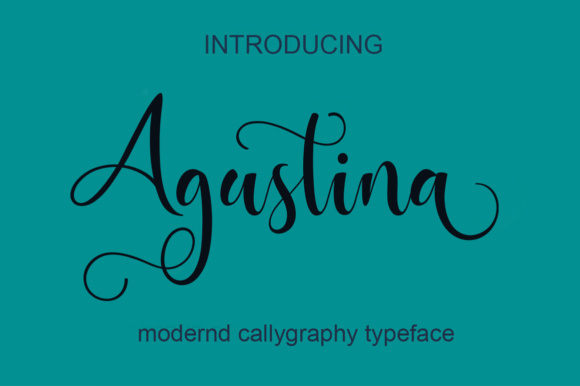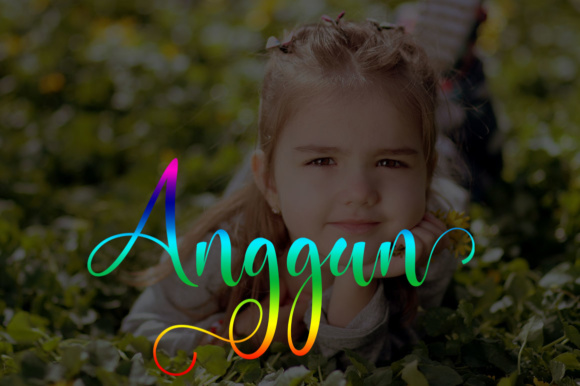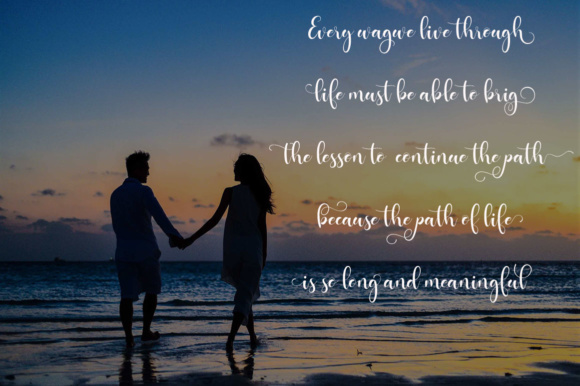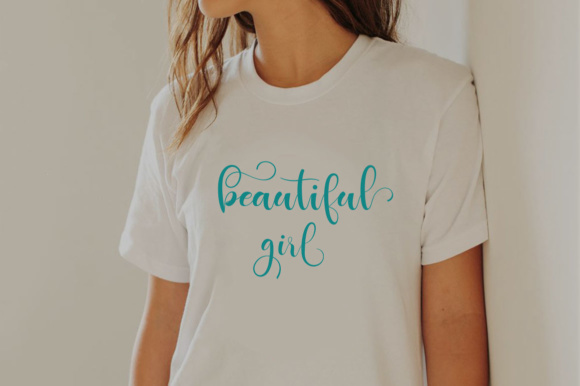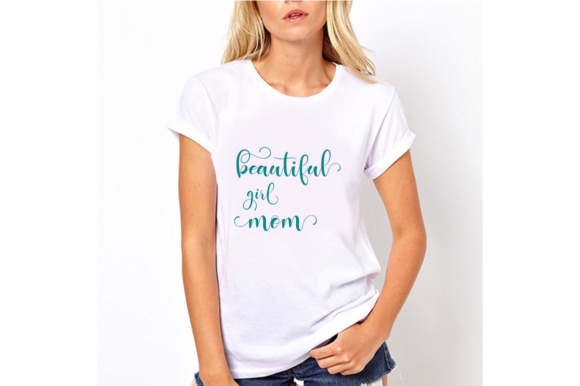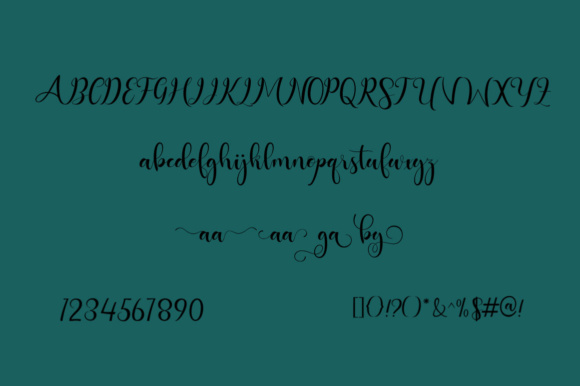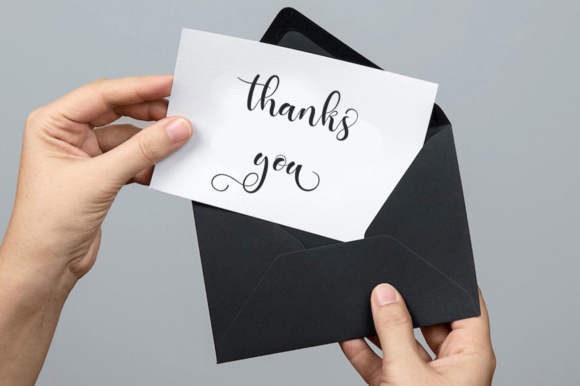
Agustina Font
About Agustina Font
Agustina is a modern calligraphy font featuring a unique look and feel.
It was completely designed by hand, and digitally optimized.